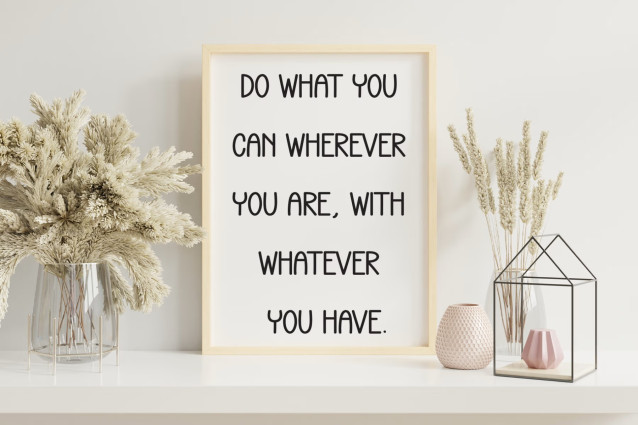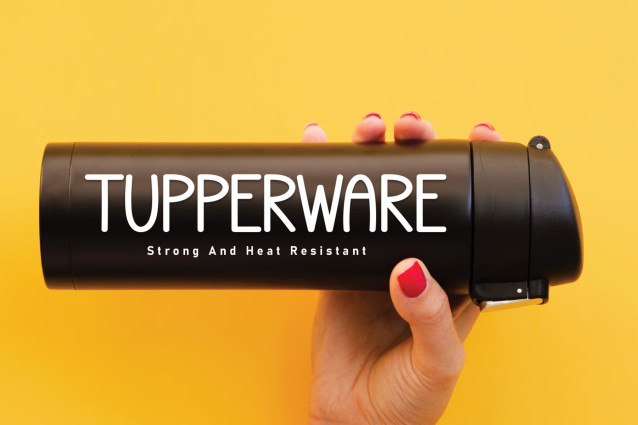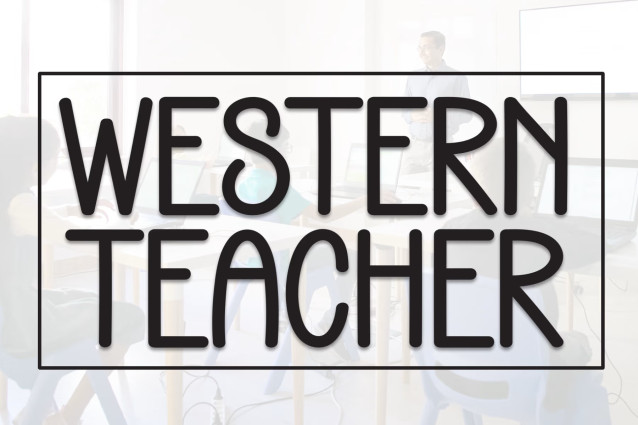
Western Teacher Font
Western Teacher Display Font is a casual sans-serif font with a laid-back vibe and a touch of elegance. Its clean lines and rounded edges give it a friendly appearance, while subtle variations in stroke width add character. Perfect for branding, logos, and editorial designs, this font brings a sense of warmth and approachability.
the latest style letters are perfect for wall displays, wedding invitations, social media post logos, advertisements, product packaging, product designs, labels, photography, watermarks, invitations, stationery, and any project that requires taste handwriting.